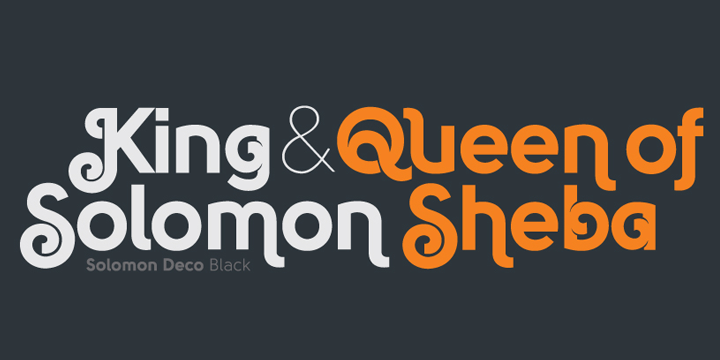
Solomon
This is an all new Solomon typeface family comprises of about 12 unique design styles. These are further categorized into two primary style groups; namely text family and display (or ornamental) family. The beautiful typeface is ideally fit for headlines of all sizes. The incredibly flexible font is also suitable for text blocks available in … Read more